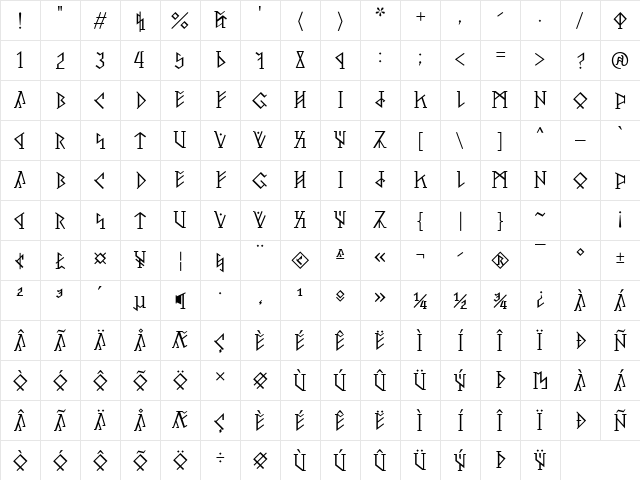
Pertho 400
Designer: Adam Jagosz
Complete Pertho 400 glyph index. Displaying only characters natively supported by Pertho 400 font.
Design Context for Pertho
Pertho is a composed and adaptable typeface that performs quietly and consistently across a wide range of design contexts.